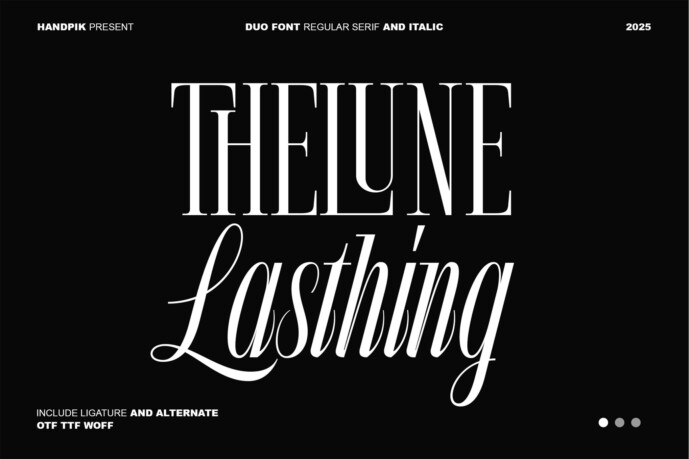
The Lune Lasthing Font
Designer: Handpikproject
The Moon Lasthing will be perfect for many projects: book, magazines, logo, branding, photography, quotes, blog header, poster, advertisements, etc.